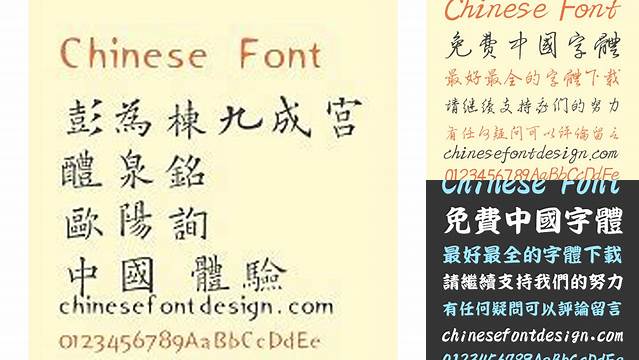
Are you looking to download traditional Chinese fonts for Windows 10? Well, you've come to the right place, my friends! Whether you're a designer, a student of Mandarin, or just someone who appreciates the beauty of Chinese calligraphy, having the right fonts is essential. Finding high-quality, free Chinese fonts can sometimes feel like searching for a needle in a haystack, but fear not! In this comprehensive guide, we'll walk you through everything you need to know. We'll cover where to find these fonts, how to install them on your Windows 10 system, and even some tips on choosing the perfect font for your project. So, let's dive in and get you set up with some awesome traditional Chinese fonts!
Why You Need Traditional Chinese Fonts
First things first, why bother with traditional Chinese fonts? Well, it's all about expressing yourself in the most authentic way possible. Traditional Chinese is primarily used in Taiwan, Hong Kong, and Macau, and it boasts a rich history and cultural significance. It's not just about the characters; it's about the style, the elegance, and the way these characters tell a story. If you're working on a project targeting audiences in these regions, using the appropriate font is crucial. It shows respect for their culture and helps your content resonate more deeply with your audience. Plus, let's be honest, some of these fonts are just plain gorgeous! They can add a touch of sophistication and artistry to your designs, making them stand out from the crowd. Think about it: are you creating invitations, designing a website, or working on any project that needs a traditional Chinese look? Without the right fonts, your message might get lost in translation—literally! So, whether for professional or personal use, having a solid collection of traditional Chinese fonts is a must-have for any creative endeavor. It will enhance the visual appeal of your projects. It can also help you in understanding and appreciating the nuances of Chinese culture. It's a fun way to show off your language skills. Also, it gives you the option of designing your works with the correct regional style. These fonts are particularly useful if you work on projects involving cultural events, educational materials, or even just for personal projects to add some eastern flavor. It's always great to have the option of supporting your favorite styles, and this makes it easy to express yourself. I hope you're excited to get started! Let’s begin!
Where to Find Free Traditional Chinese Fonts
- Google Fonts: Google Fonts is a fantastic resource for a wide variety of fonts, including some excellent Chinese options. While not all fonts are traditional Chinese, it's a great starting point. Just search for “Chinese” or “Hanzi” to see what’s available. The interface is user-friendly, and you can easily download fonts and even preview them before you commit.
- DaFont: DaFont is another popular website with an extensive collection of fonts. You can find many high-quality free fonts here, and they often have traditional Chinese options. Make sure you check the license before you download the font to ensure that it’s free for your intended use. You can easily find many font variations, and it has a great search functionality. It's a treasure trove for designers looking to expand their font library.
- Font Squirrel: Font Squirrel is a great option for finding free, high-quality fonts. The website offers a curated selection of fonts, and it often includes some fantastic traditional Chinese options. All fonts are free for commercial use, which is a huge bonus. This website is designed to make it easy for people to find the perfect fonts for all projects. Many of the fonts are unique and stand out from the crowd. It's an excellent place to explore for hidden font gems.
- Chinese Font Websites: There are also dedicated websites that focus specifically on Chinese fonts. These sites often have a wider selection of traditional Chinese fonts, and they might be more specialized for the language. Search for “free Chinese font download” to find these resources. Sometimes, you'll find unique fonts you won’t find elsewhere. These websites are often created by designers or developers who are passionate about Chinese typography. They offer fonts with diverse styles, from elegant calligraphic fonts to modern, clean options. Explore these sites for a richer collection!